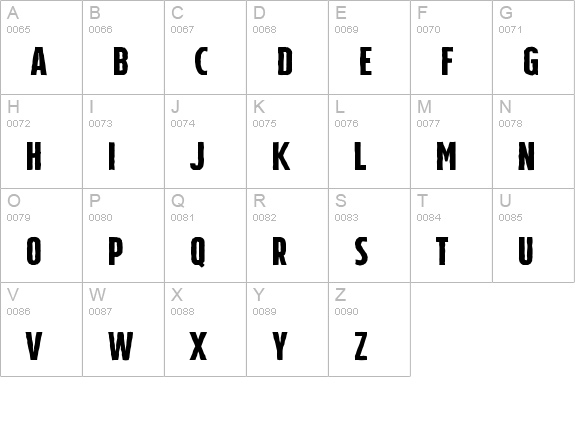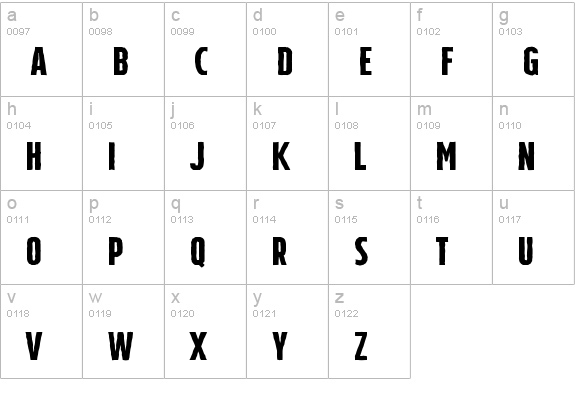
Tolyer X Handmade No.2 font is a unique and charming typeface that effortlessly combines handmade elements with a modern aesthetic. With its quirky yet elegant design, this font is perfect for adding a touch of personality to any creative project. The irregular strokes and playful curves give Tolyer X Handmade No.2 a distinct and eye-catching look that is sure to make your designs stand out. What makes Tolyer X Handmade No.2 even more appealing is that it is available for free download at FontsMarket.com. This means you can easily access this beautiful font and use it in your projects without any cost. Whether you're working on branding, packaging, invitations, or any other design work, Tolyer X Handmade No.2 is a versatile font that will bring a handmade touch to your creations. Download it today and let your creativity flow with this delightful and free typeface.